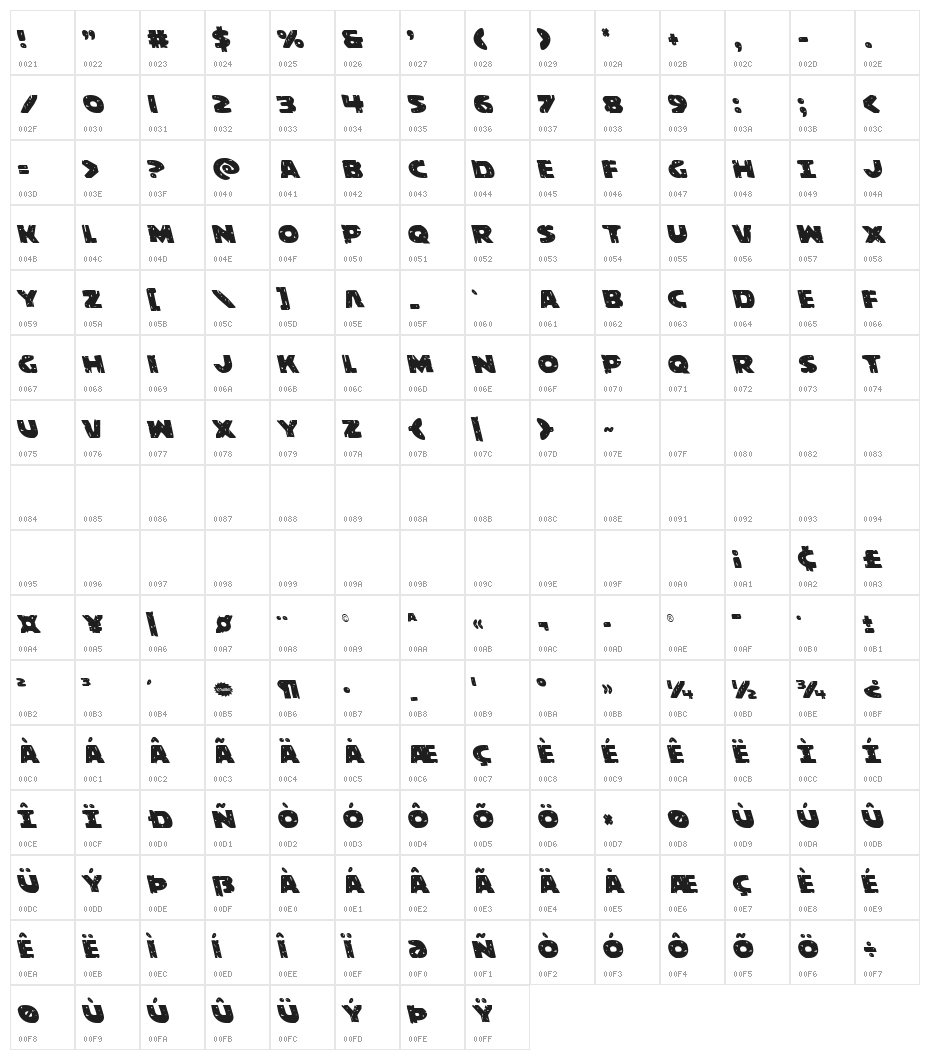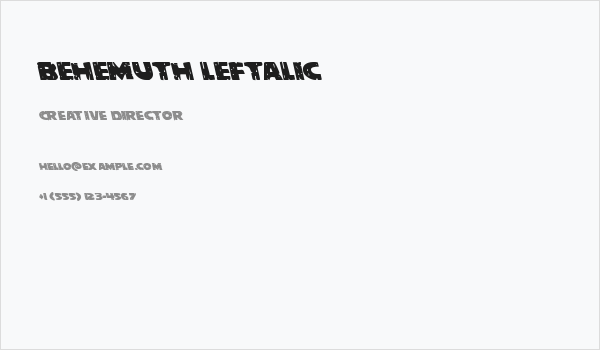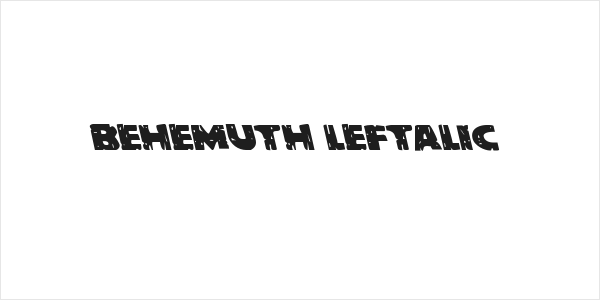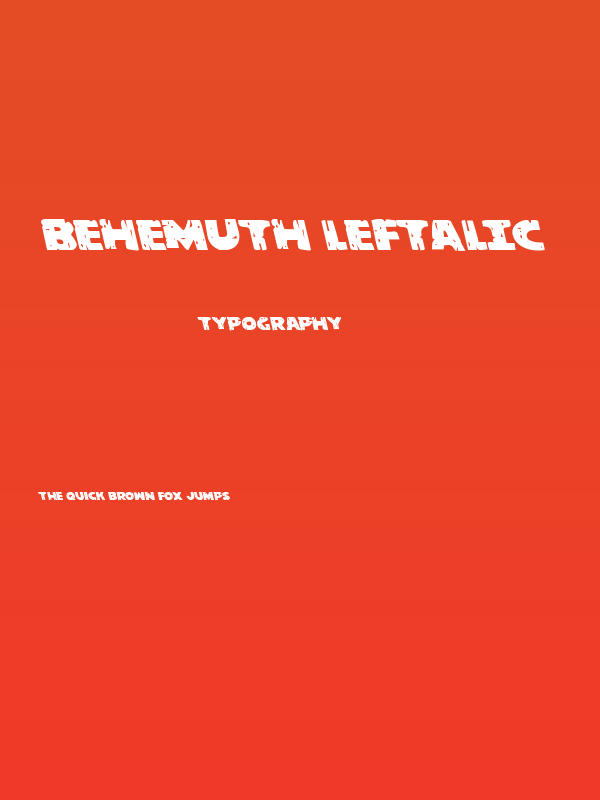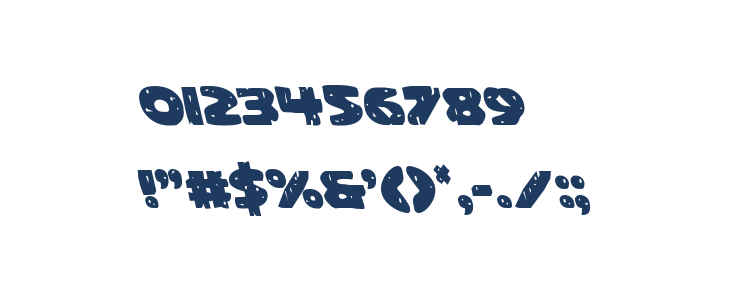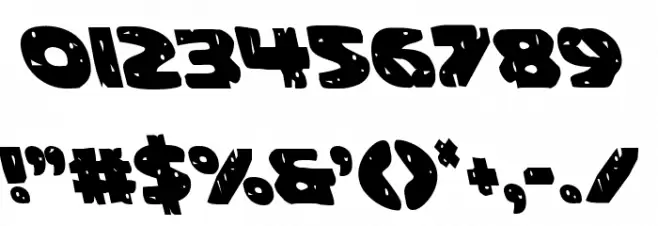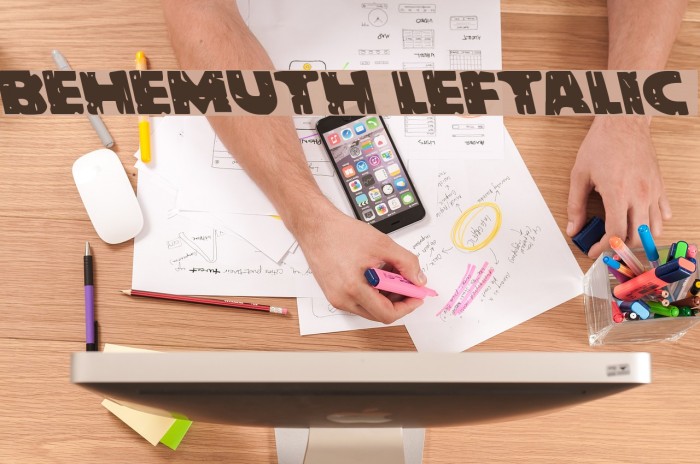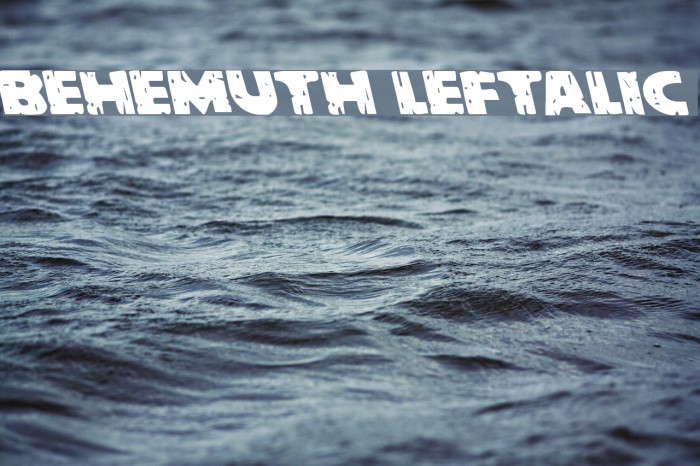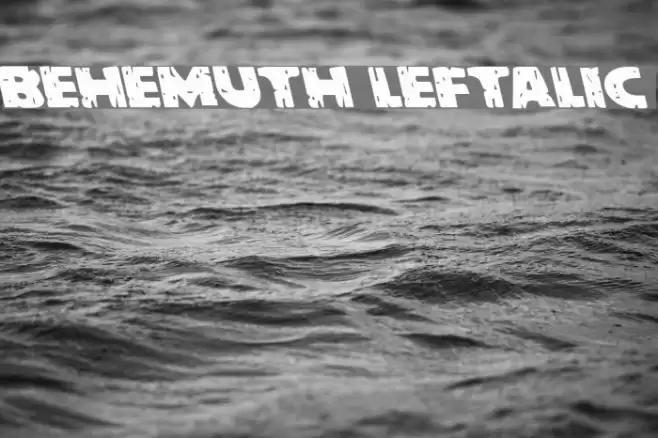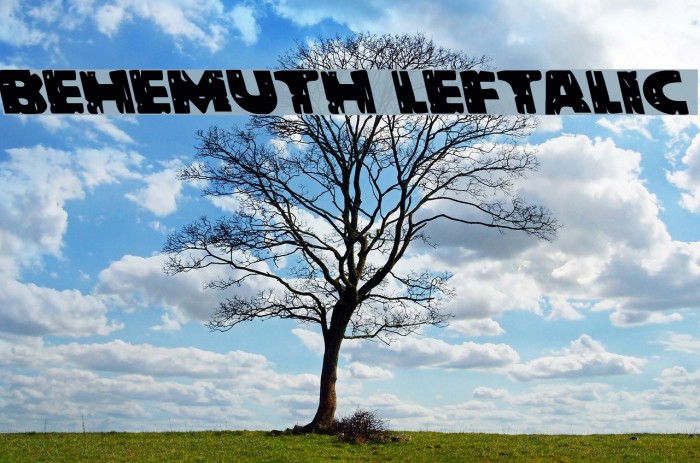
Behemuth Leftalic Font
Behemuth Leftalic Description
This font features a bold and playful design with a distinct leftward slant, giving it a dynamic and energetic appearance. The characters are filled with irregular shapes and cutouts, adding a unique texture and visual interest. The uppercase and lowercase letters maintain a consistent style, while the numbers and special characters complement the overall aesthetic. This font's boldness and decorative elements make it stand out, suitable for eye-catching designs.
| Proposed Projects | Ideal for posters, event flyers, children's book covers, and any project needing a fun, bold statement. |